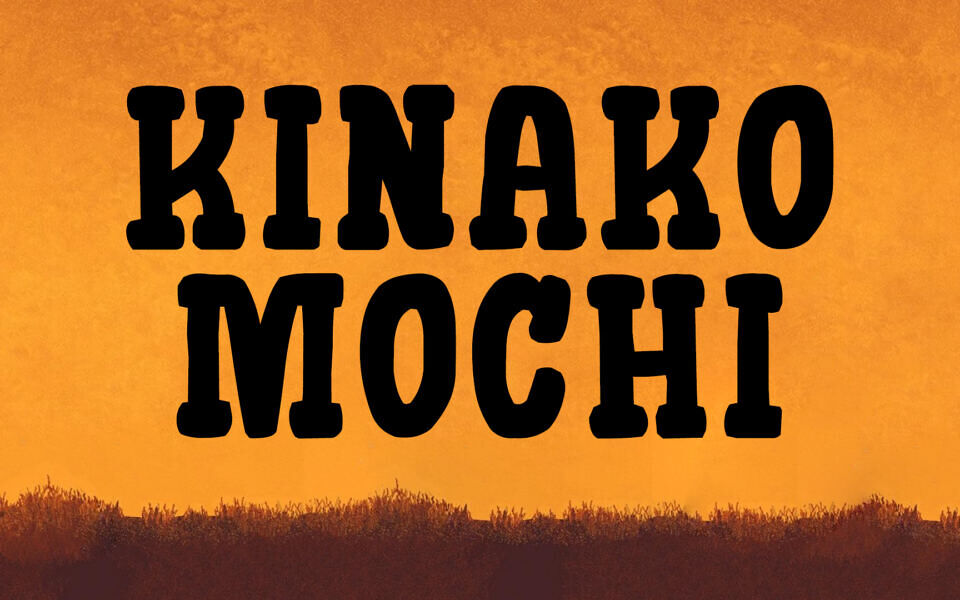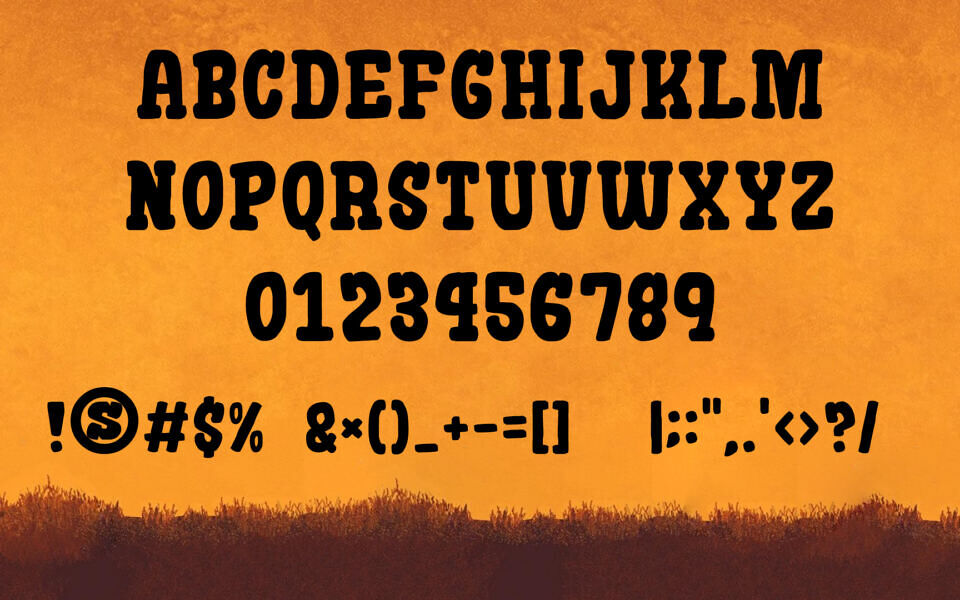
Discover Kinako Mochi, a delightfully bold and chunky slab-serif font from Gomarice. Its friendly, rounded characters exude a warm and playful vibe, making it instantly eye-catching and perfect for impactful headlines.
This all-caps display font is ideal for logos, branding, food packaging, and posters that require a touch of casual confidence. With its charming, slightly western feel inspired by the sweet Japanese dessert, Kinako Mochi adds a memorable and substantial look to any creative project.